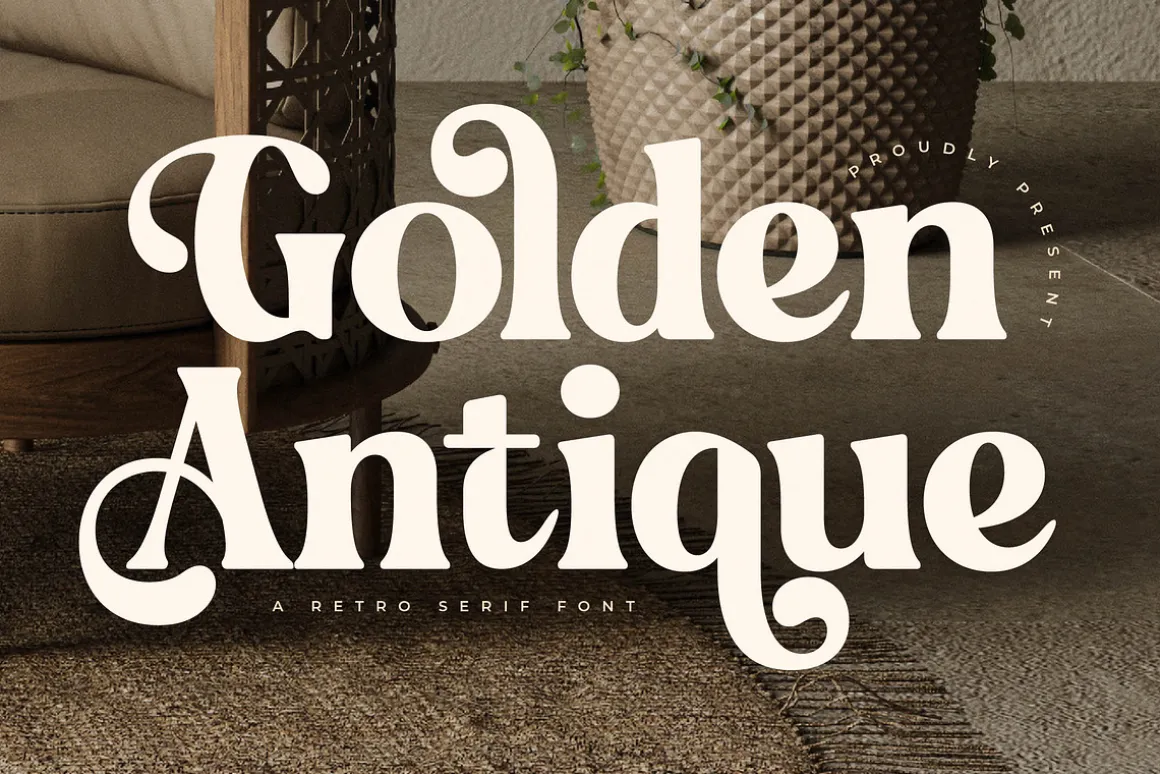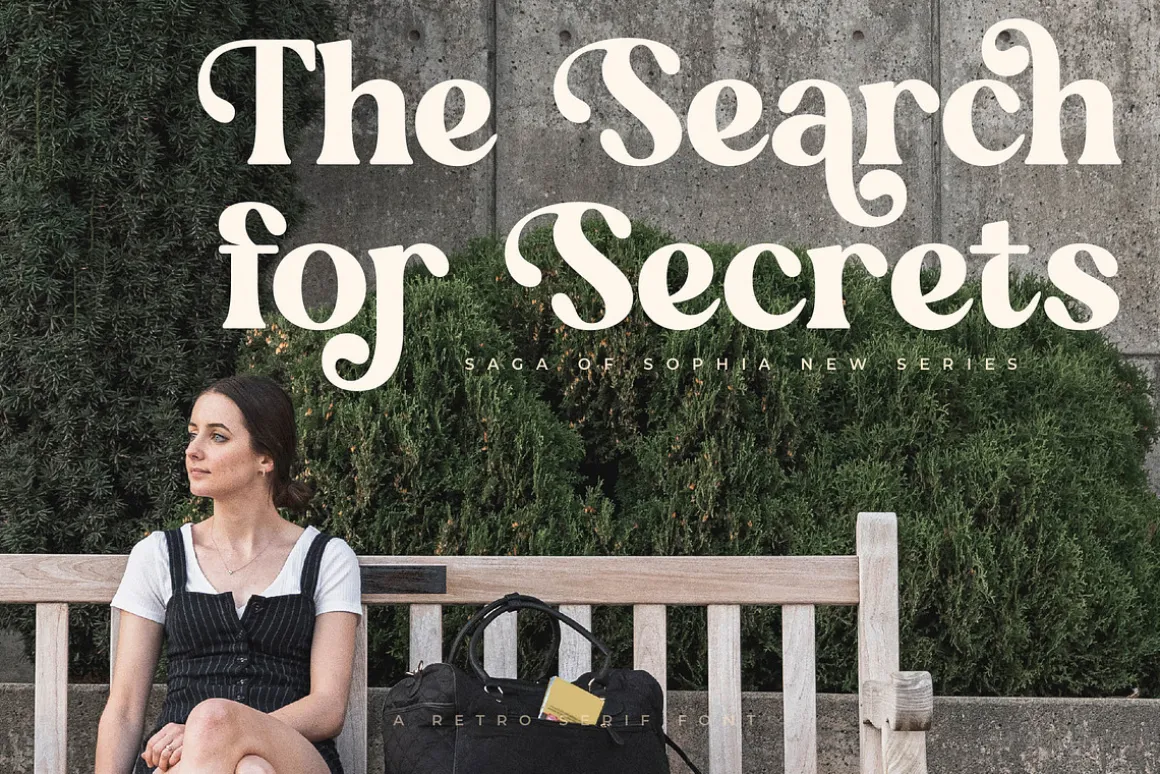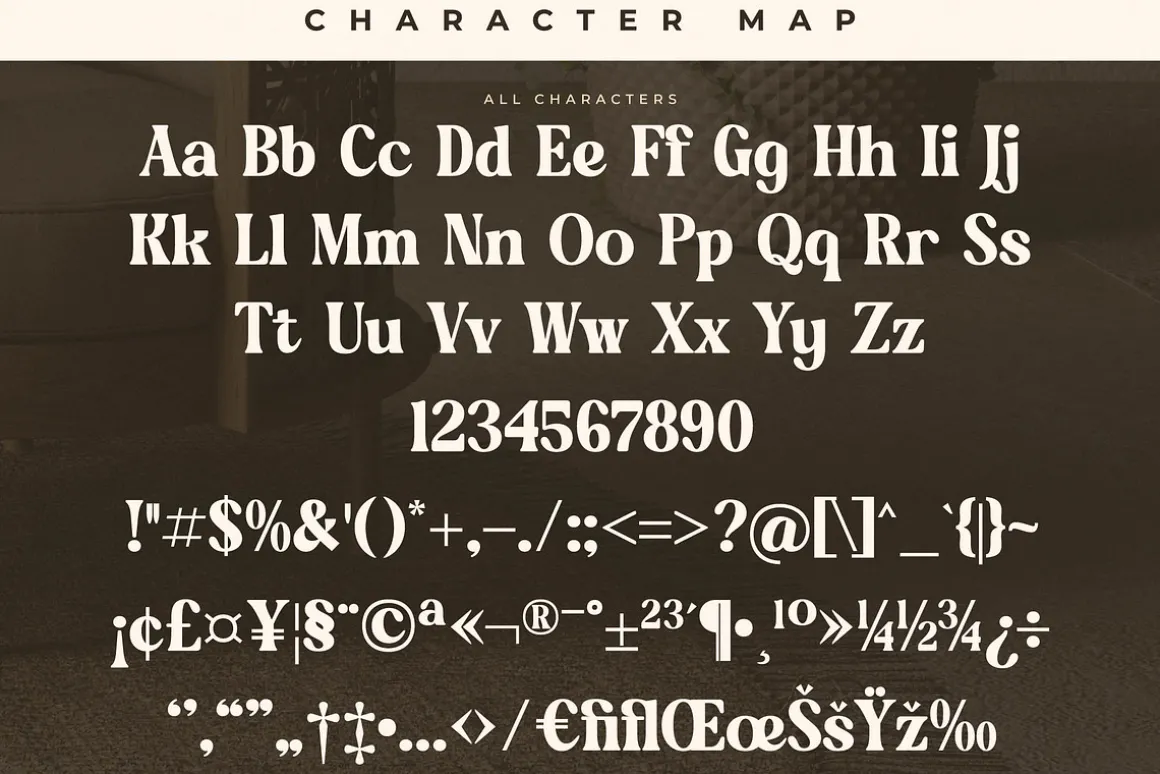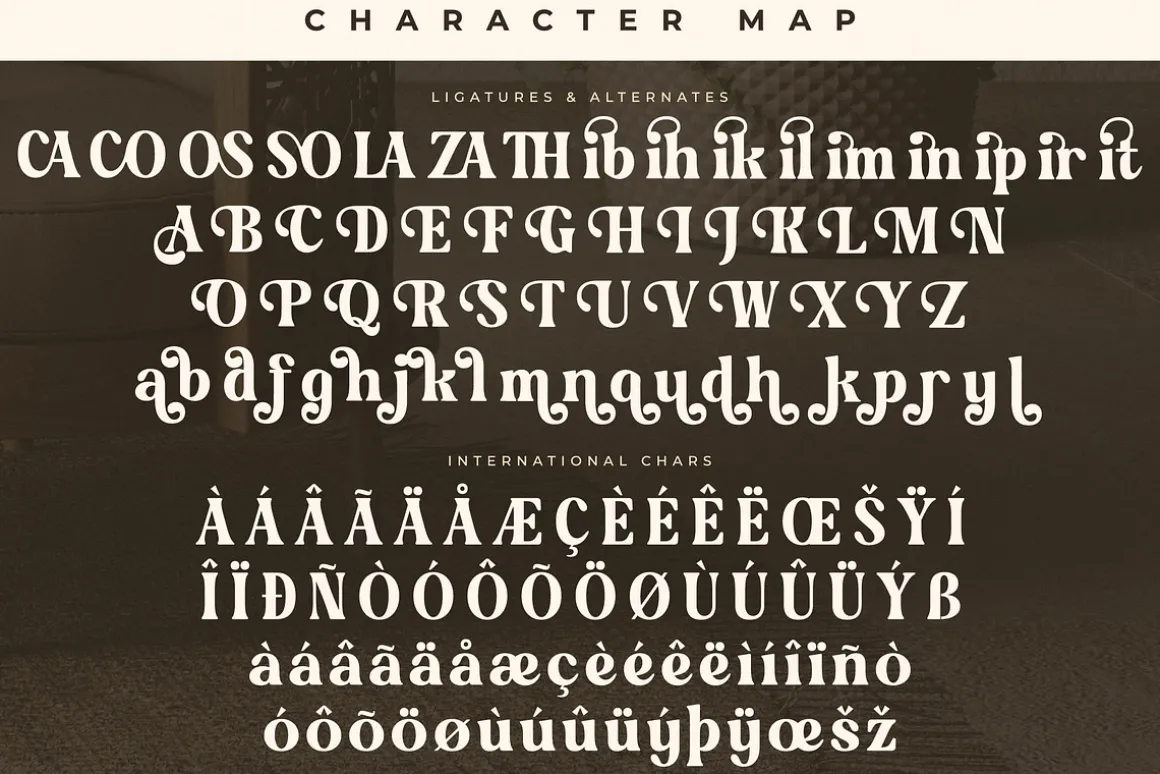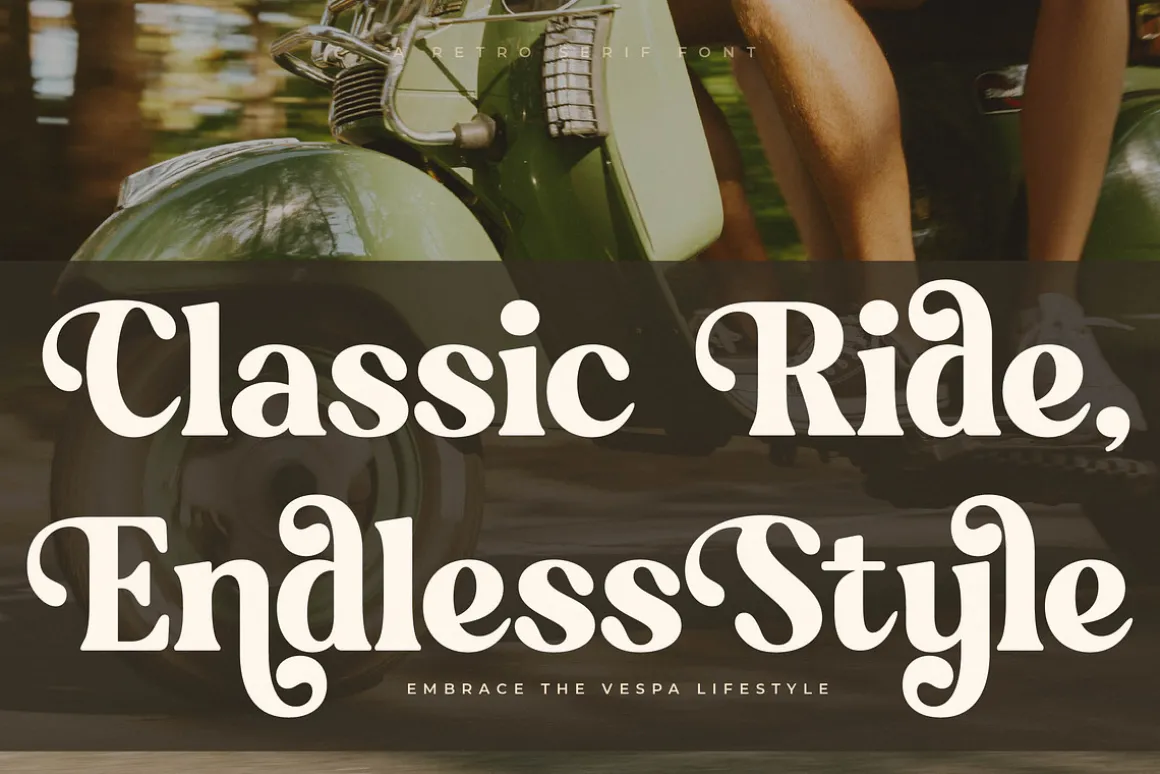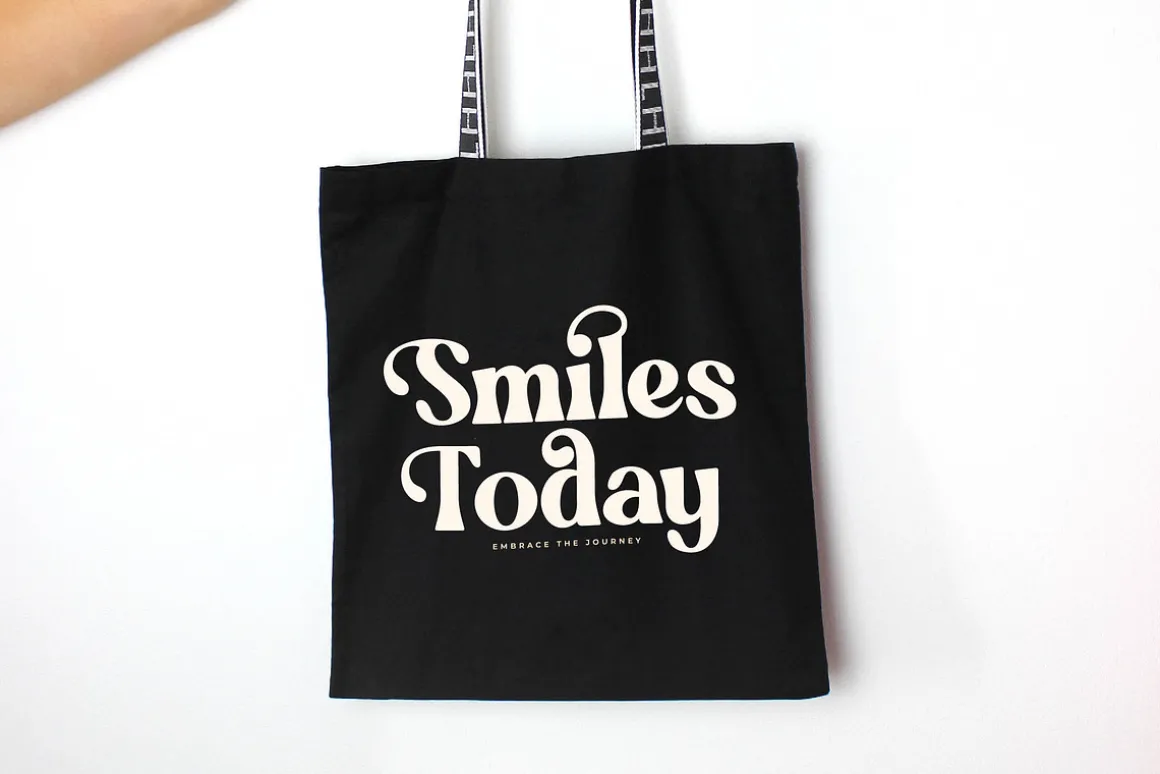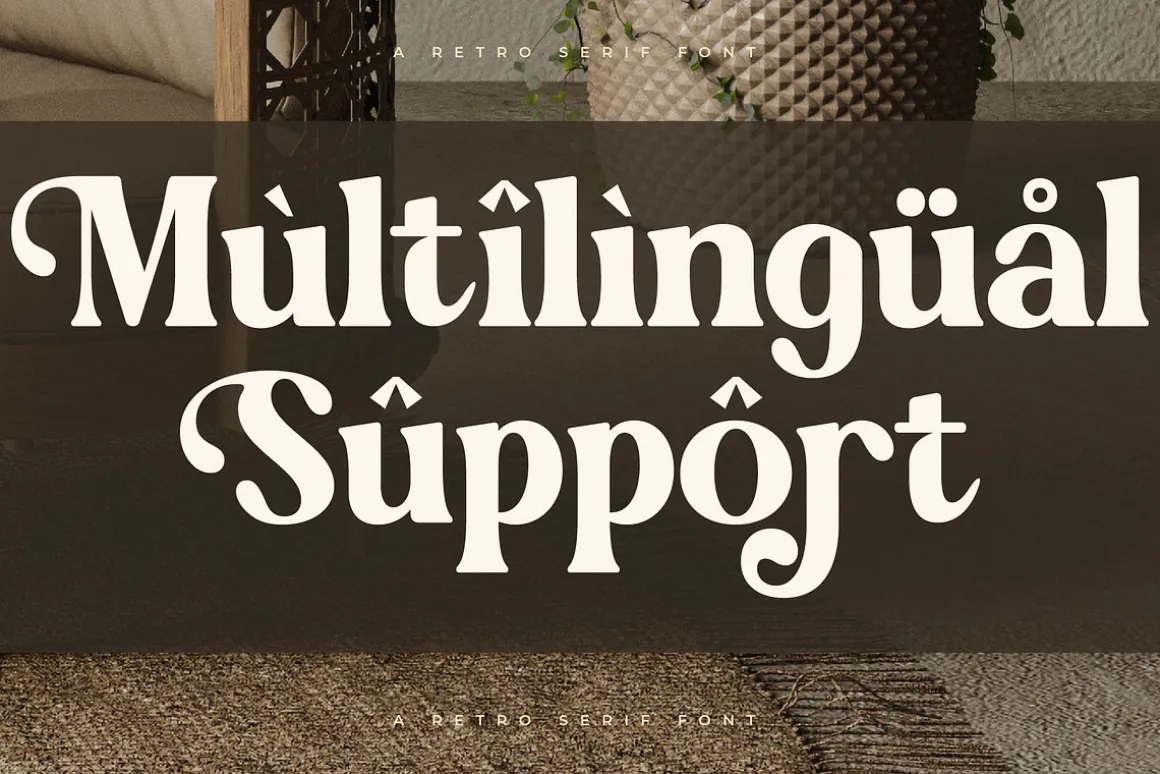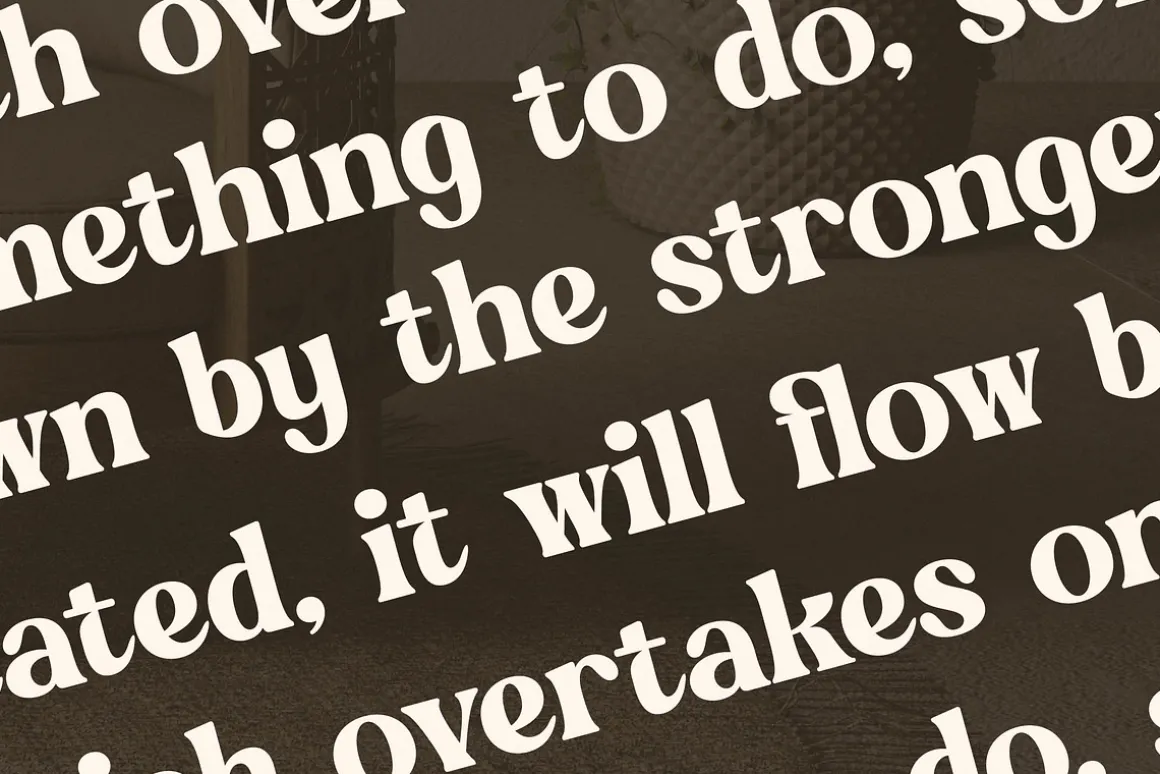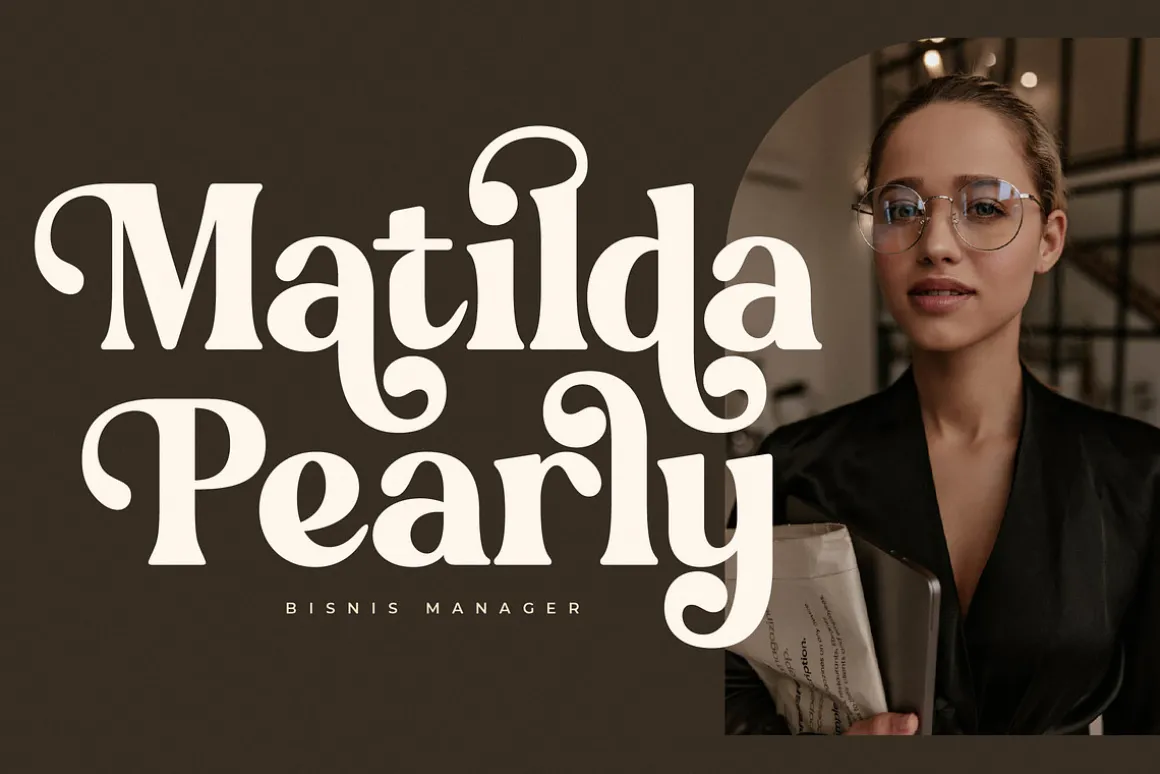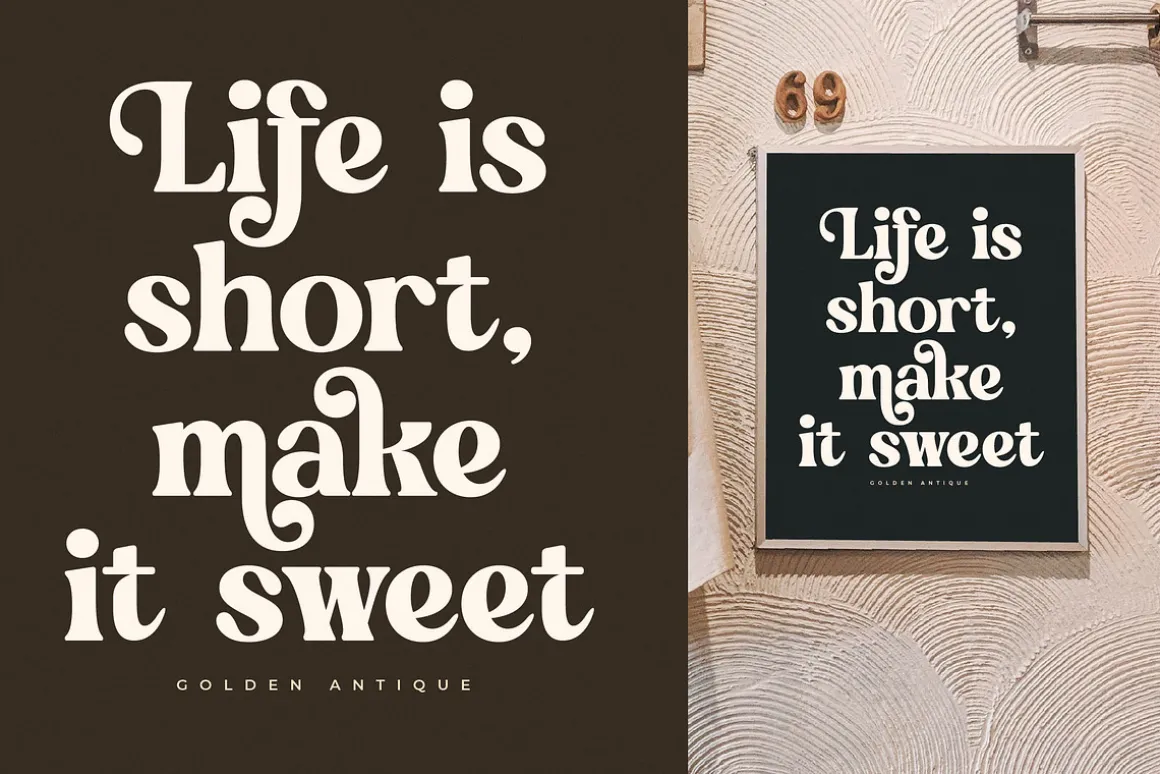
Golden Antique – Retro Serif Font , from Letterena, is a Luxury Serif font, suitable for any projects such as: logos, branding projects, homeware designs, product packaging, mugs, quotes, posters, shopping bags, t-shirts, book covers, name card, invitation cards, greeting cards, label, photography, watermark, special events, and all your other luxury and beautiful projects that need a Luxury Serif taste.
- Numerals
- Punctuations (OpenType Standard)
- Accents (Multilingual Characters)
- Ligatures and Alternative Style Stylistic Set